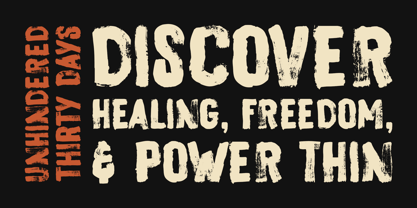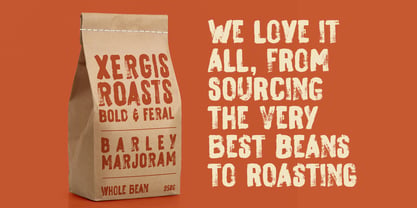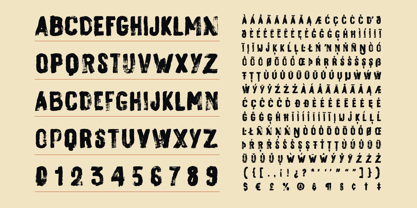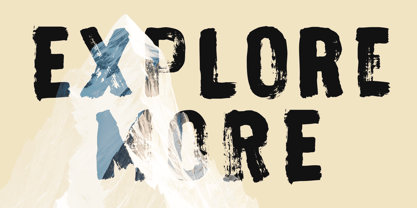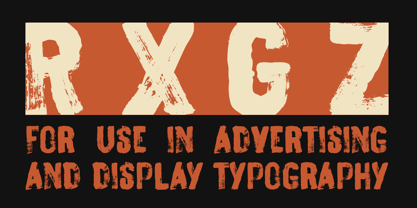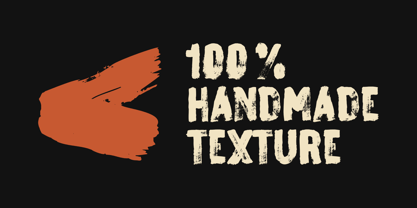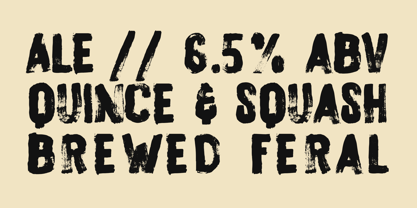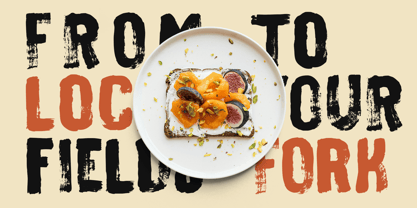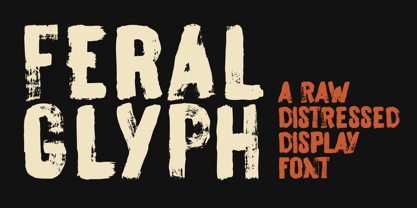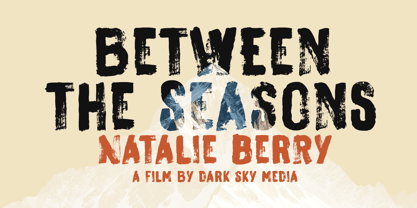
Feral Glyph
The Feral Glyph Font Family was designed by Eko Kurniawan and published by Atom. Feral Glyph contains 1 styles. More about this family
FERAL GLYPH is a robust, highly textured distressed display font developed from manual hand-drawn brush ink strokes. Engineered specifically for high-impact display typography, it bridges the gap between chaotic underground aesthetics and commercial usability.
The font excels in maintaining structural integrity even when scaled to large formats, making it highly reliable for professional print and digital media. Its jagged edges and sophisticated organic distress deliver an immediate raw feeling, minimizing the need for extra manual distressing in your design workflow.
• Complete Glyphs: Includes comprehensive uppercase and lowercase layouts, numerals, standard ligatures, and punctuation sets.
• Advanced Language Support: Equipped with complete character mappings for Western, Central, and South-Eastern European languages.
• Optimal Use-Cases: Designed for high-visibility applications such as commercial advertising, packaging design, publication titles, film posters, streetwear branding, and music industry graphics.
Whether you are working on an artisan brand identity or designing for a high-profile entertainment project, FERAL GLYPH provides the raw typographic power necessary to command attention.